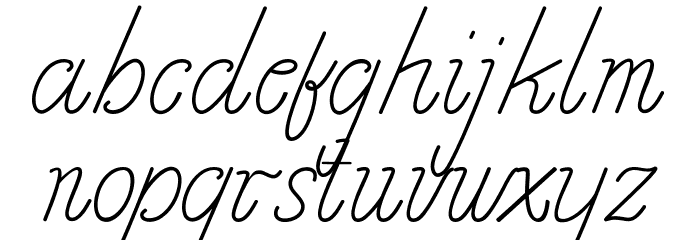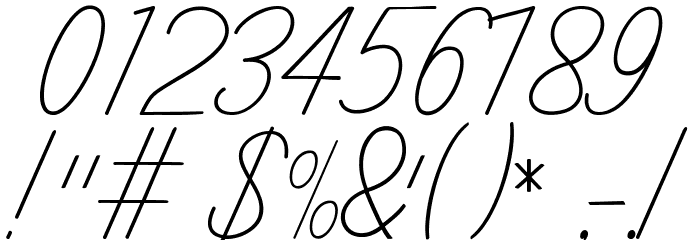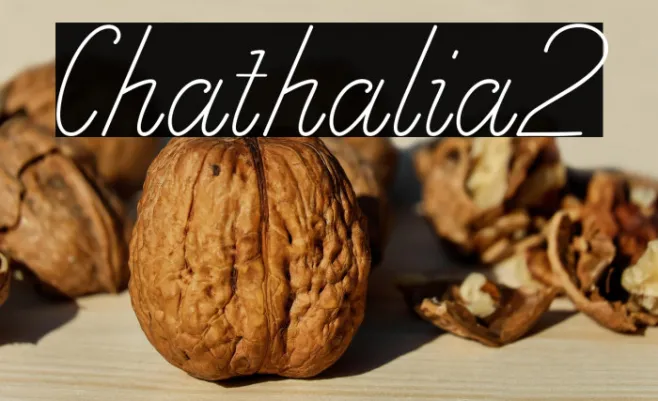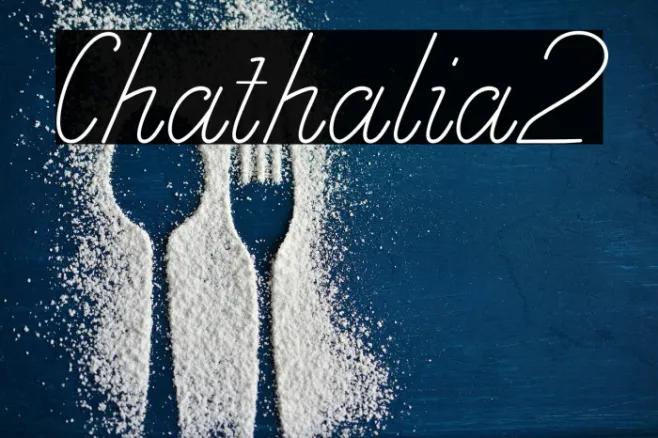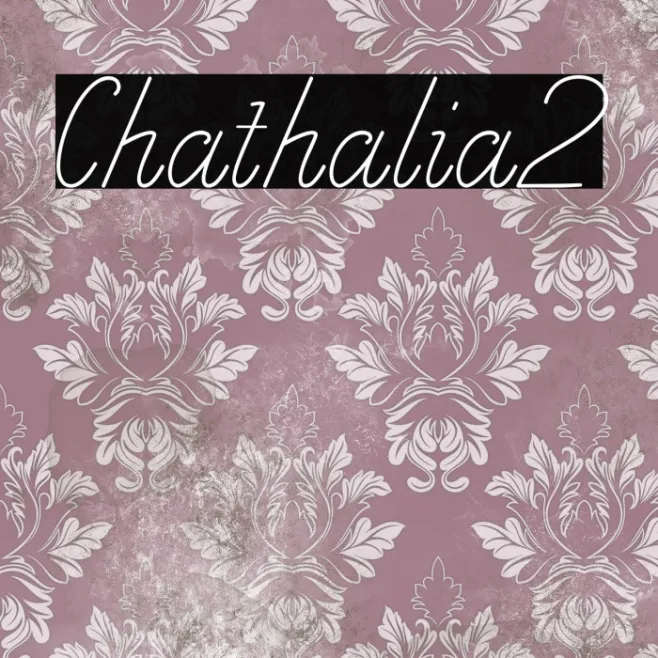
Chathalia2 Font
This elegant script font features a flowing, cursive style with smooth, continuous strokes that mimic the fluidity of handwriting. The uppercase letters are tall and graceful, while the lowercase letters maintain a consistent slant, enhancing the overall cohesive appearance. The numerals are well-integrated into the design, maintaining the same slanted, cursive style. Special characters are thoughtfully designed to match the aesthetic, ensuring a harmonious look across all text. This font exudes sophistication and charm, making it ideal for projects that require a personal touch.
A graceful, cursive script font with fluid, continuous strokes.
- Font: Chathalia2
- Proposed Projects: Ideal for wedding invitations, elegant branding, personal stationery, and artistic projects requiring a handwritten touch.
- Category: Script
- Overall Style: Elegant
- Use Case: Logos, Invitations, Personal Correspondence